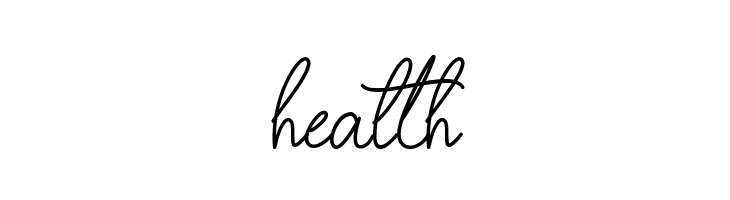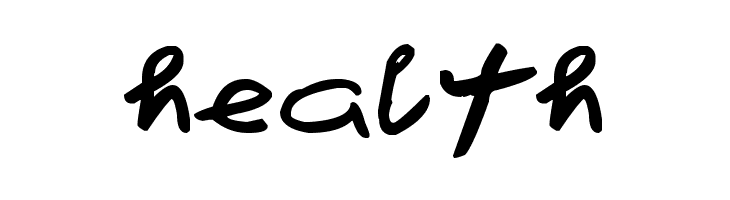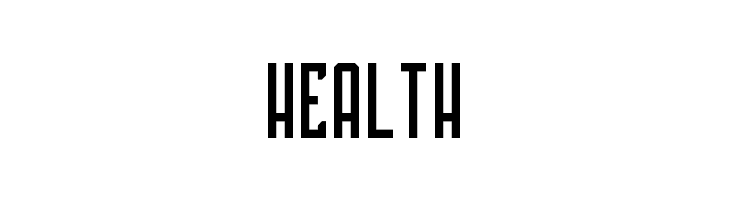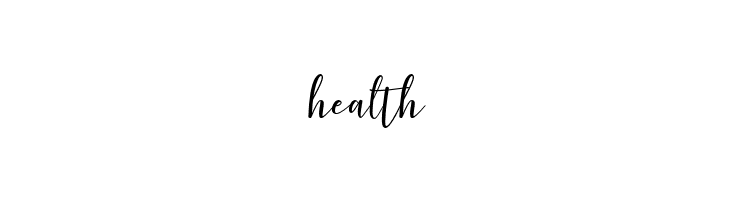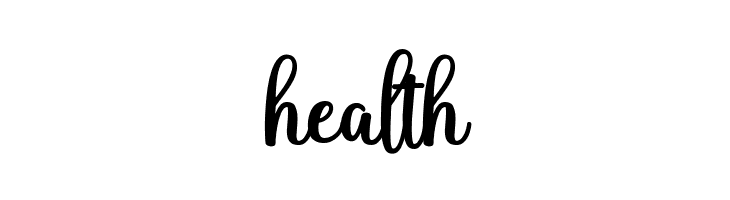
A modern, artistic font with circular, flowing characters.
A modern, rounded sans-serif font with a friendly and approachable style.
An elegant script font with flowing, cursive letterforms and a sophisticated style.
An elegant script font with flowing, ornate cursive letters and intricate swashes.
A graceful cursive script font with elegant, flowing lines.
A lively, handwritten-style font with bold, expressive strokes.
A bold, geometric font with a modern, futuristic aesthetic.
An elegant script font with flowing, ornate letterforms and sophisticated style.
A charming and elegant script font with playful, whimsical curves.
An elegant script font with fluid, cursive strokes and high contrast.